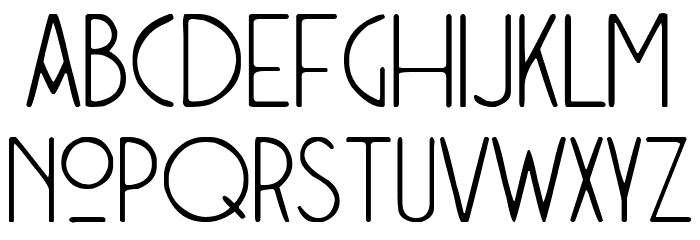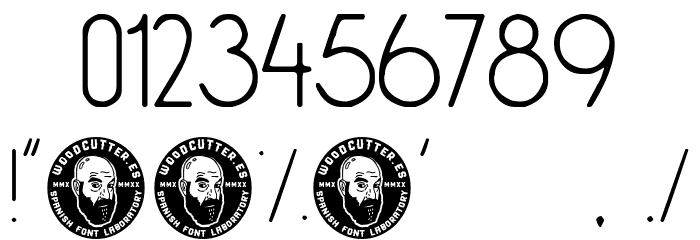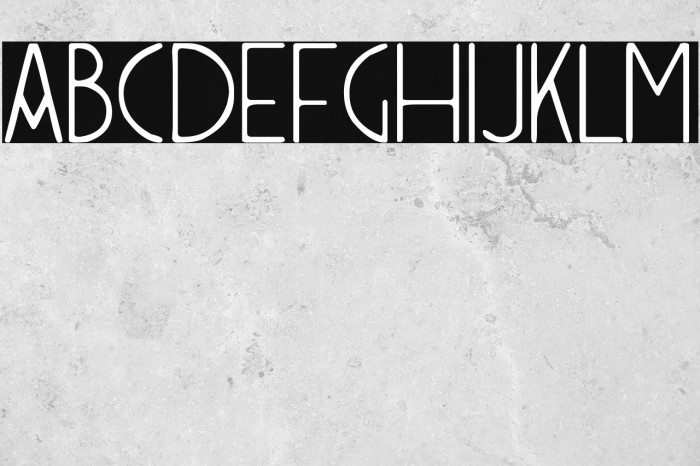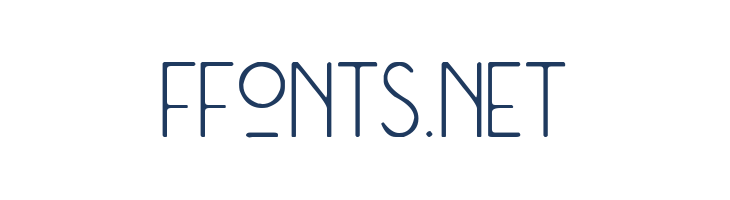
Casino Madrid Font
This font features a unique blend of geometric and art deco influences, characterized by its clean, linear forms and distinctive angular elements. The uppercase letters exhibit a striking balance between sharp angles and smooth curves, creating a modern yet timeless aesthetic. The lowercase letters maintain this geometric precision, offering a cohesive look across all characters. Numbers are designed with the same attention to detail, ensuring readability and style. Special characters are thoughtfully integrated, complementing the overall design. This font's uniform line weight and consistent character spacing contribute to its elegant and sophisticated appearance, making it suitable for a variety of design applications.
A geometric, art deco-inspired font with clean lines and angular elements.
- Font: Casino Madrid
- Proposed Projects: Ideal for branding, editorial design, packaging, and signage projects.